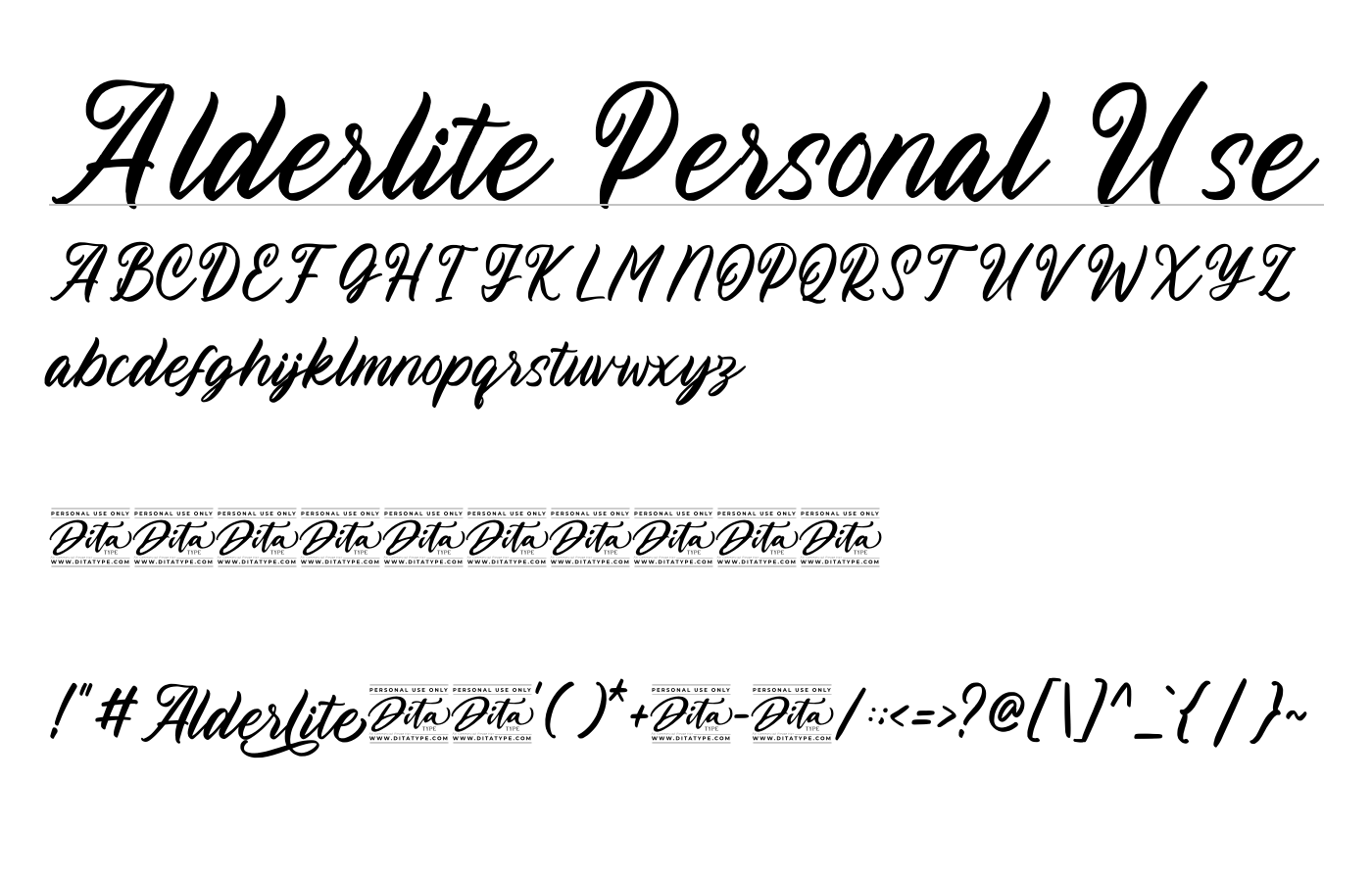
Alderlite Personal Use is an elegant script font with a smooth, flowing style that combines classic and modern handwritten charm. Its medium weight and slightly condensed letterforms offer a refined and stylish look perfect for invitations, branding, and headline use where a graceful, personal touch is desired. This font shines in creative projects that seek to communicate sophistication and warmth with a lively, approachable personality.
| Font family | Alderlite Personal Use Font |
| Designer | Fahrul Arjianto & Donis Miftahudin |